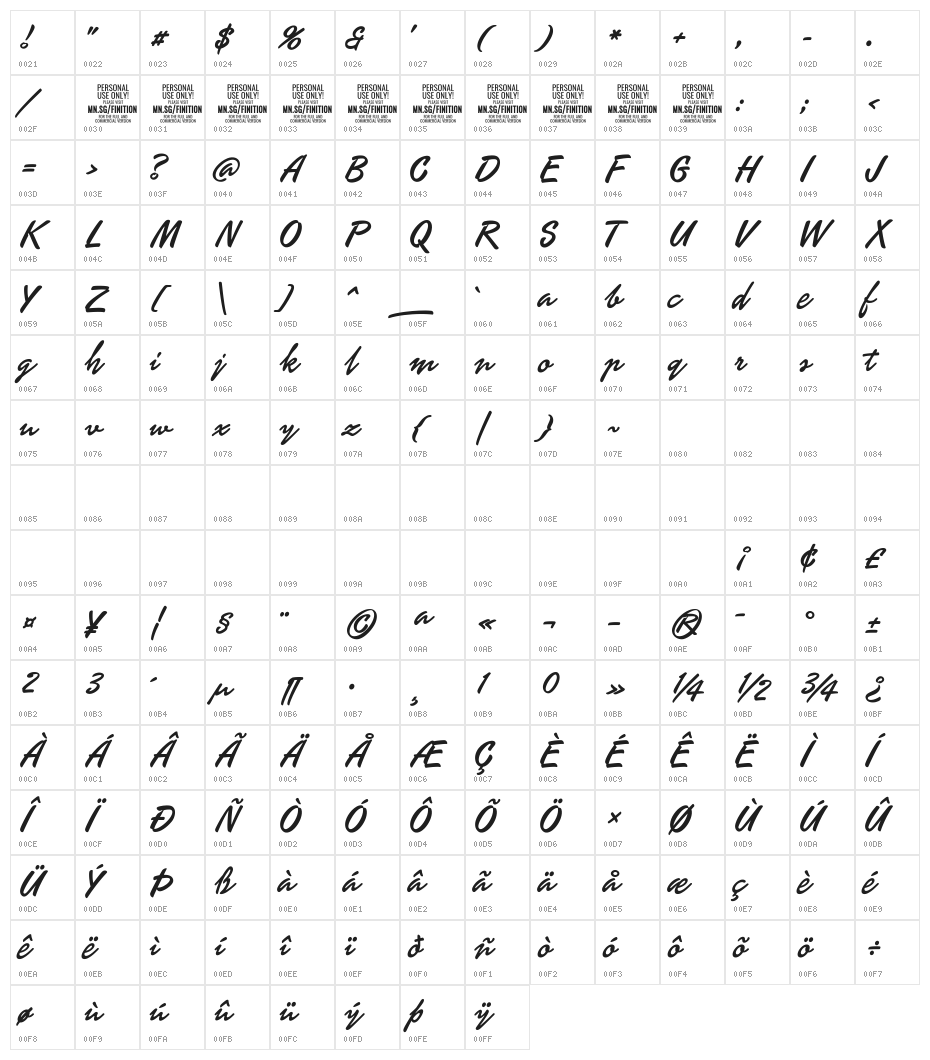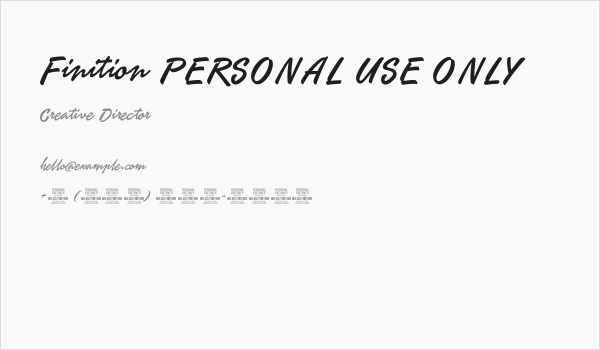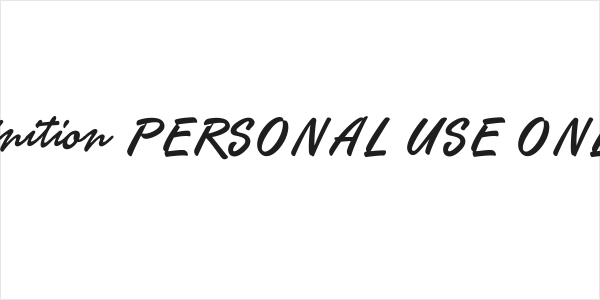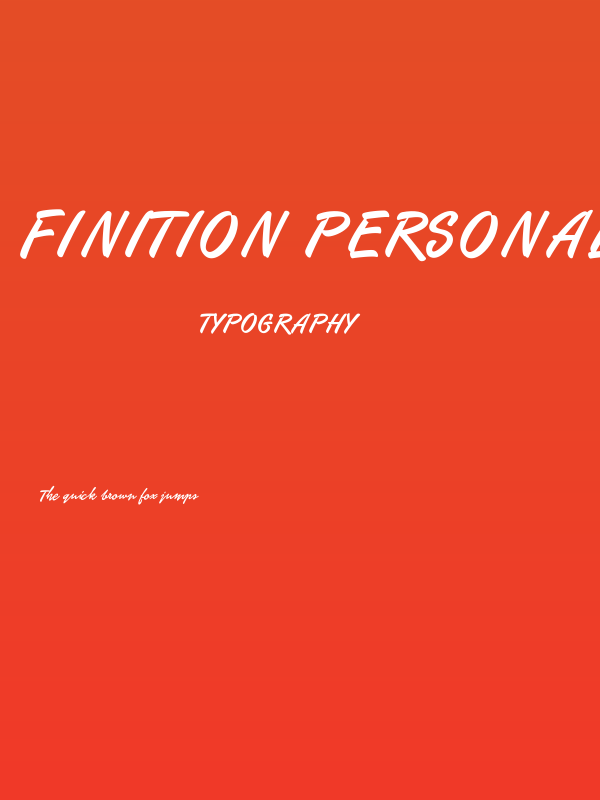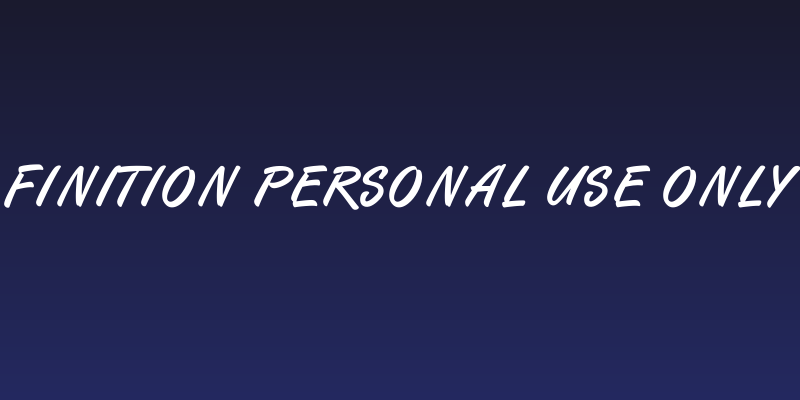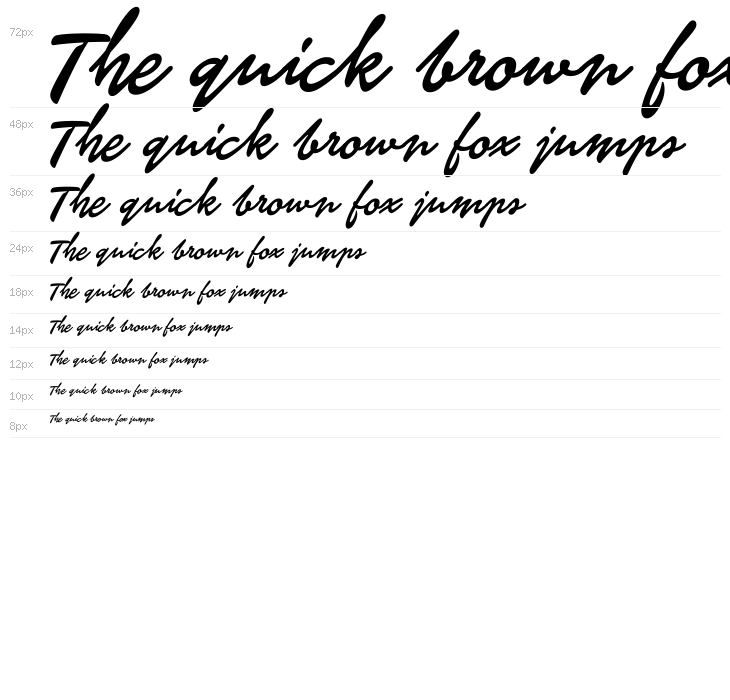
Finition PERSONAL USE ONLY Font
Finition PERSONAL USE ONLY Description
This font features a bold, cursive style with smooth, flowing lines that give it a dynamic and elegant appearance. The uppercase letters are slightly slanted, adding a sense of motion and fluidity, while the lowercase letters maintain a consistent flow that enhances readability. The characters are well-balanced, with a moderate contrast in stroke thickness that adds depth without compromising clarity. The font includes a full set of uppercase and lowercase letters, numbers, and a variety of special characters, making it versatile for various design needs. Its handwritten aesthetic is both modern and timeless, suitable for projects that require a personal touch.